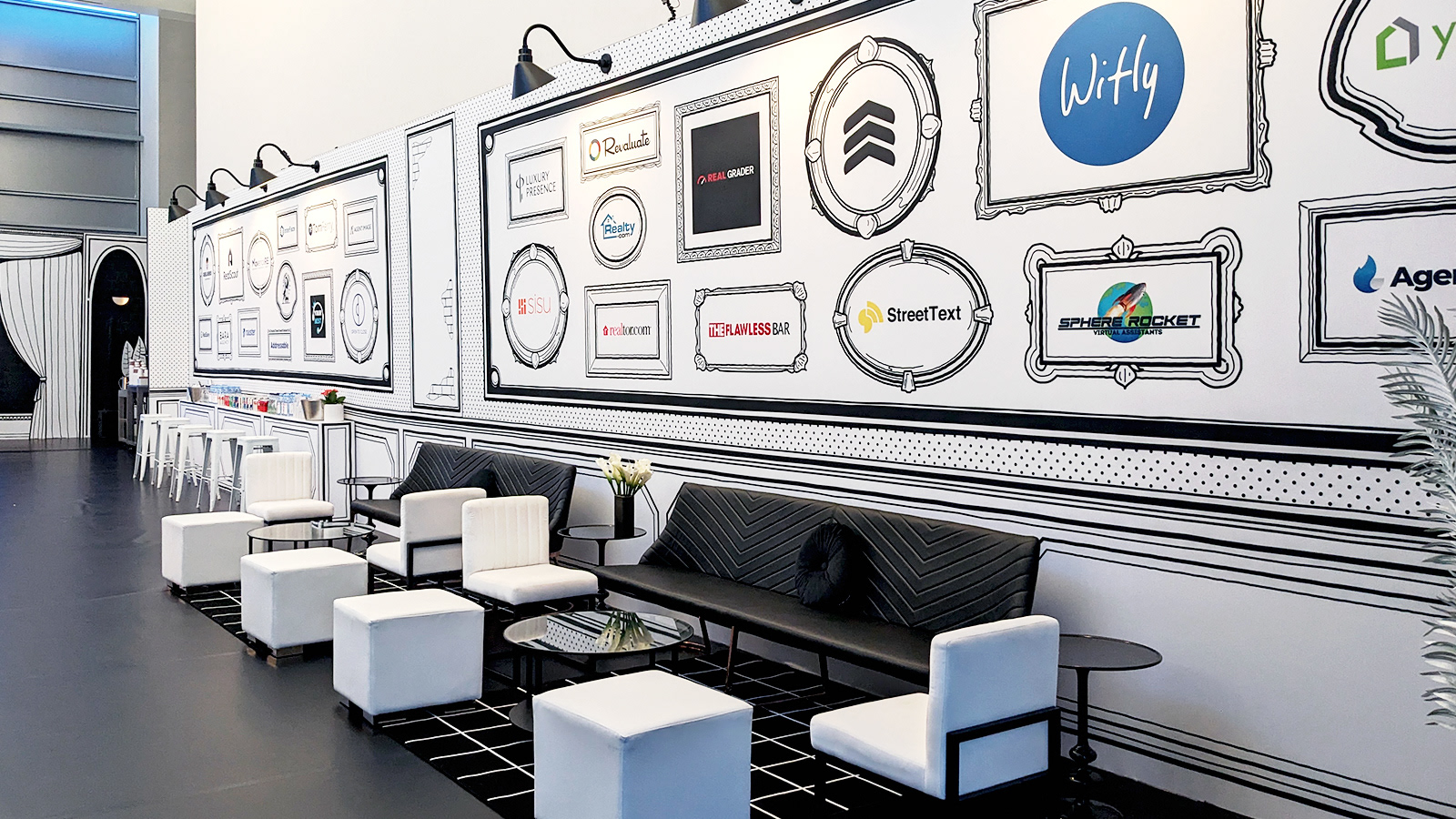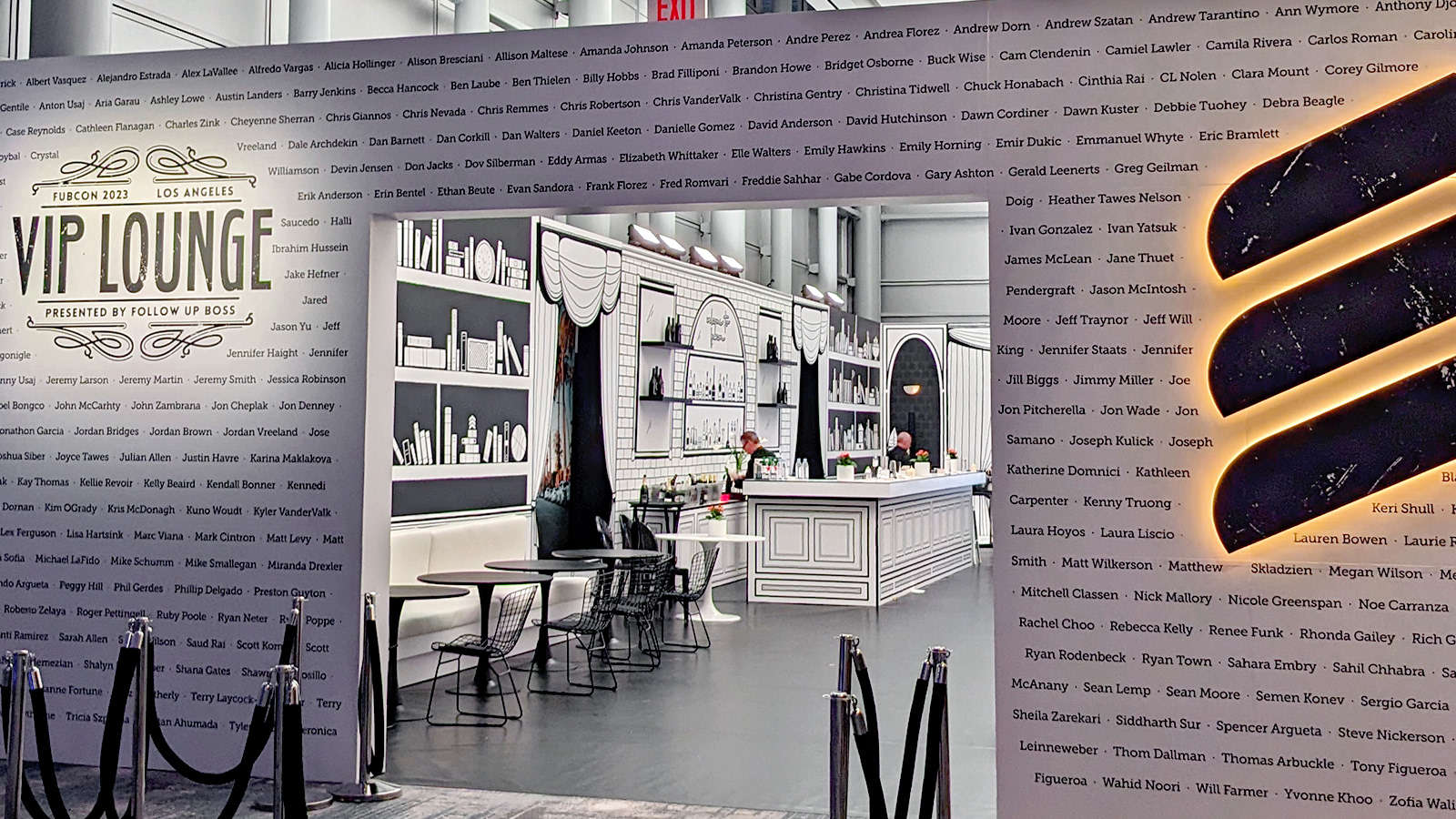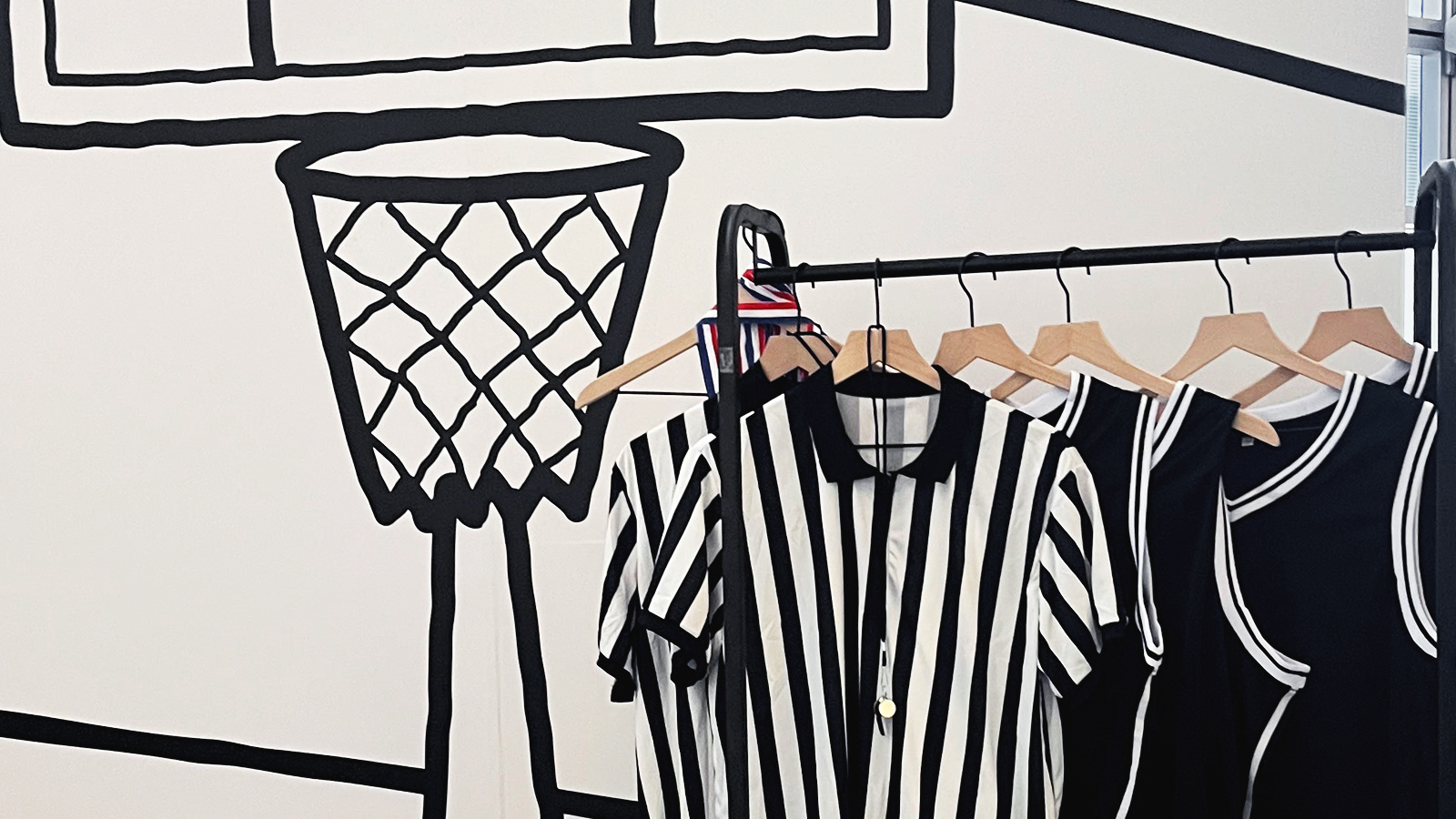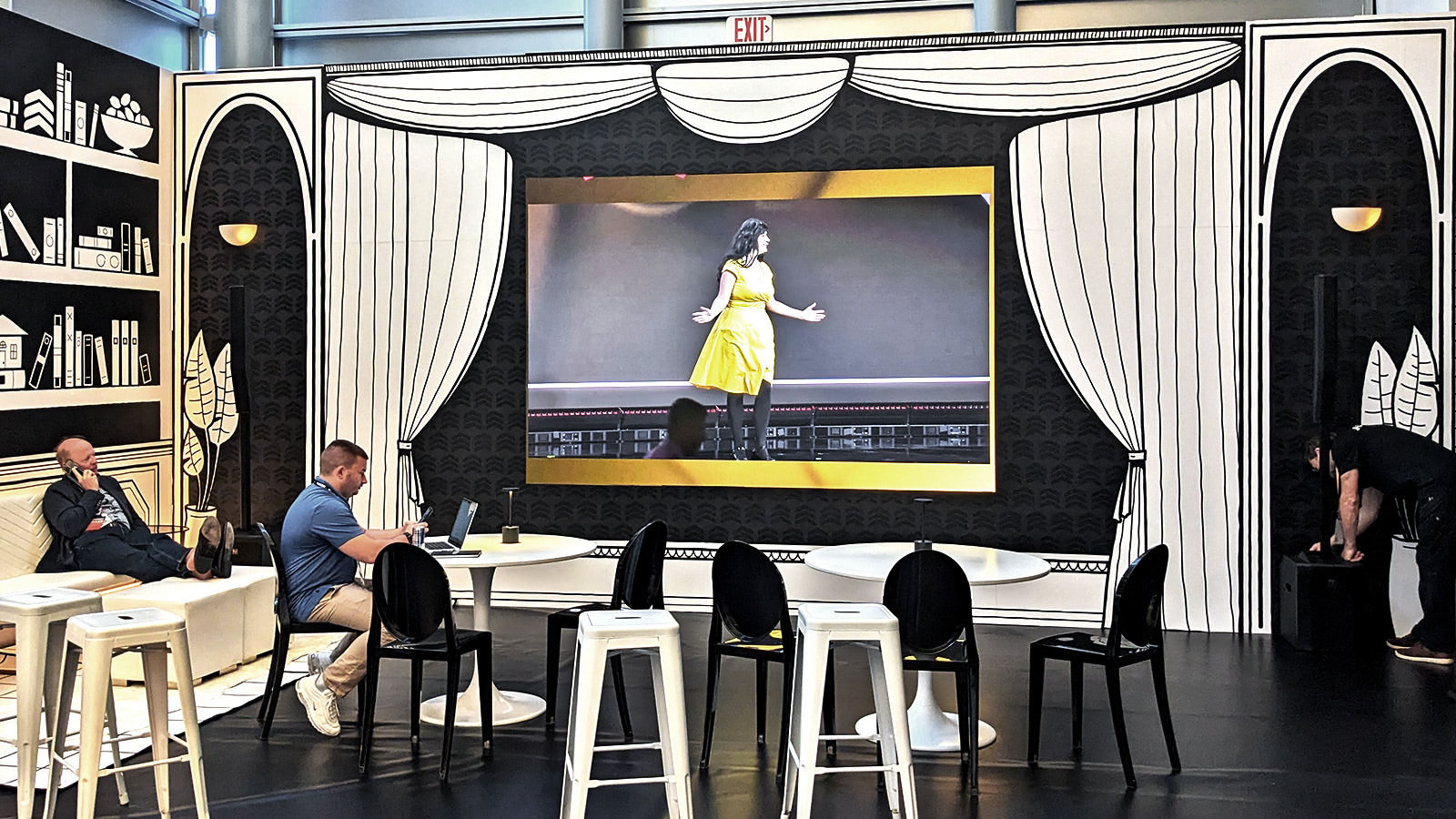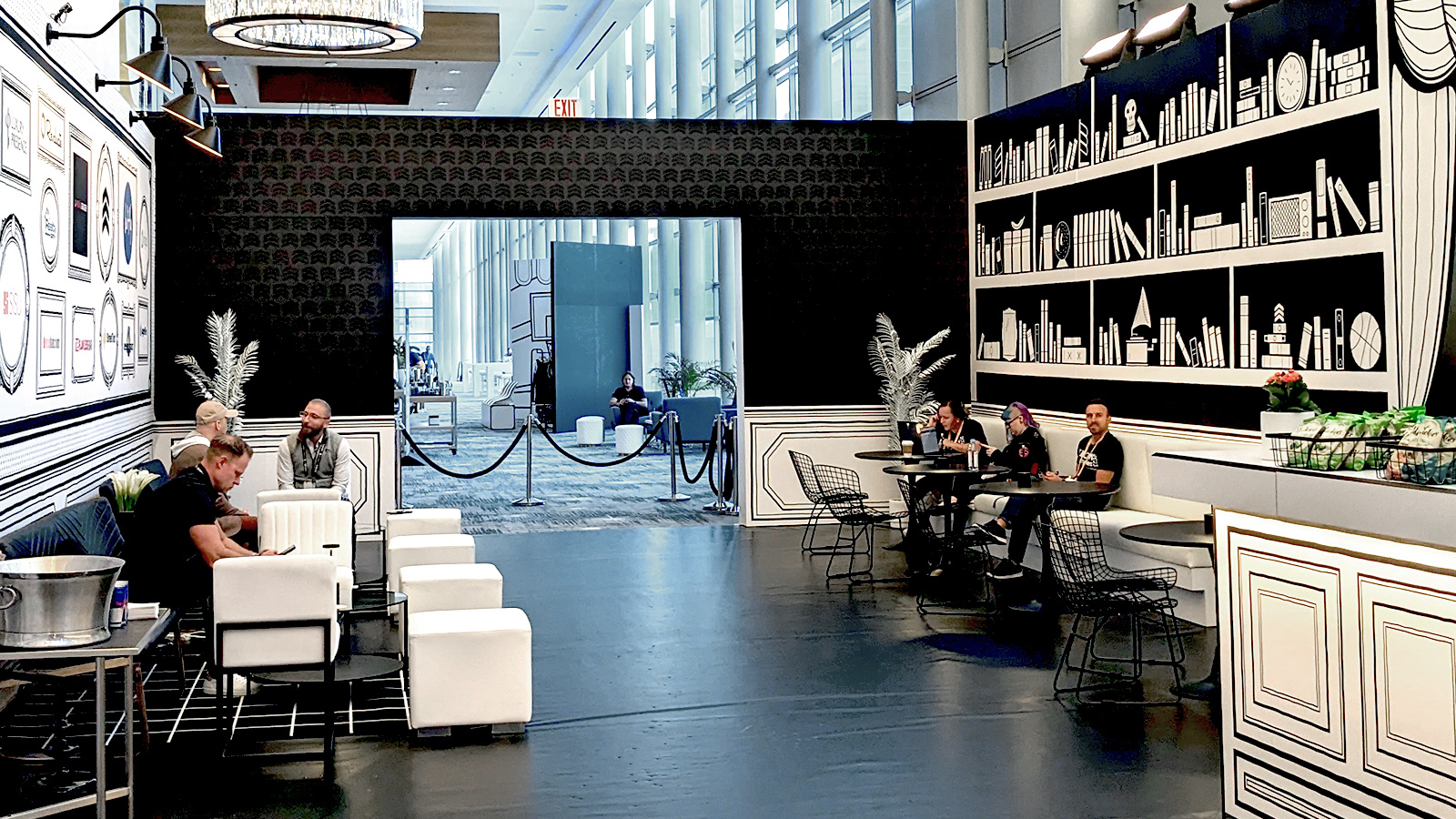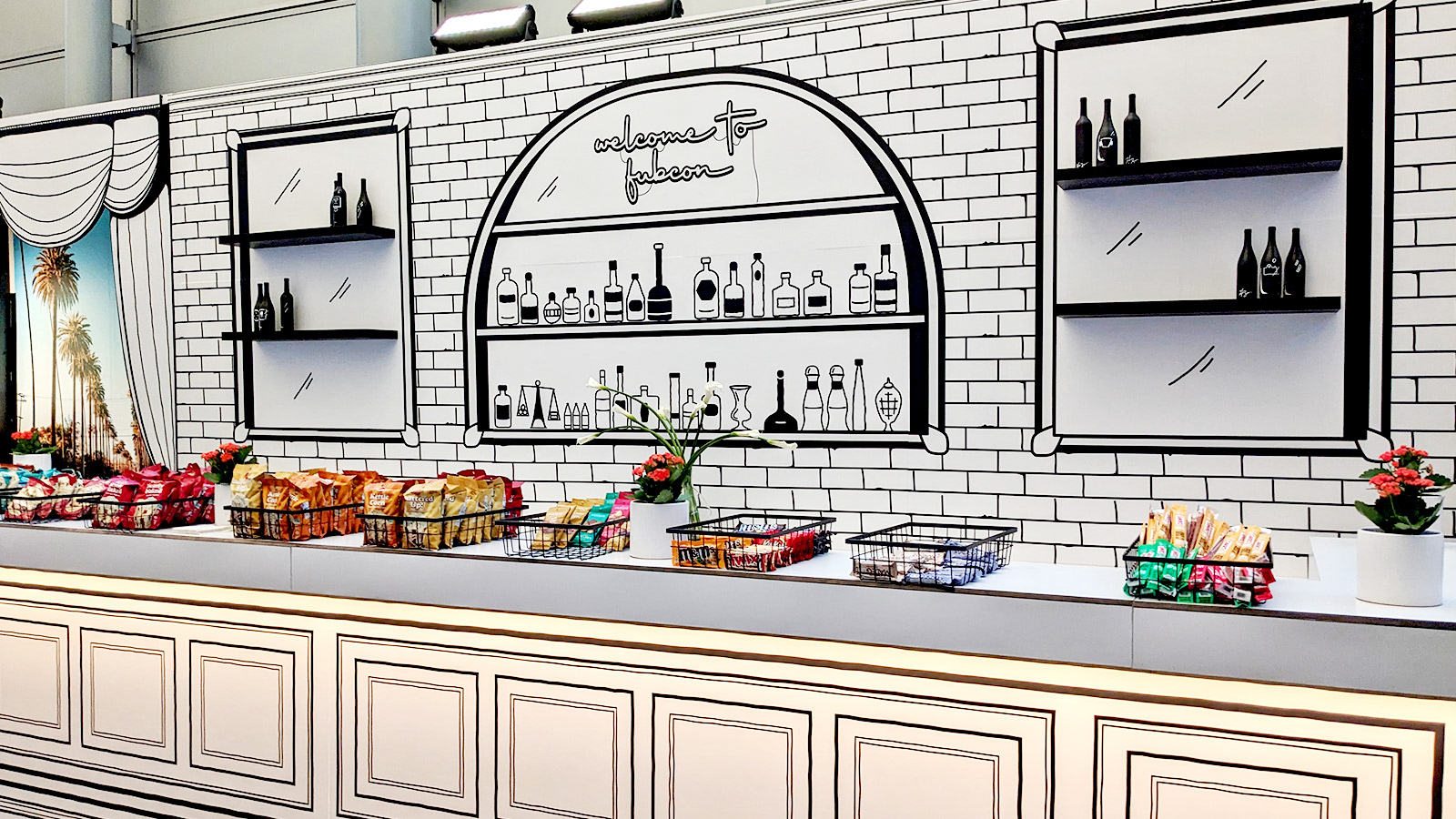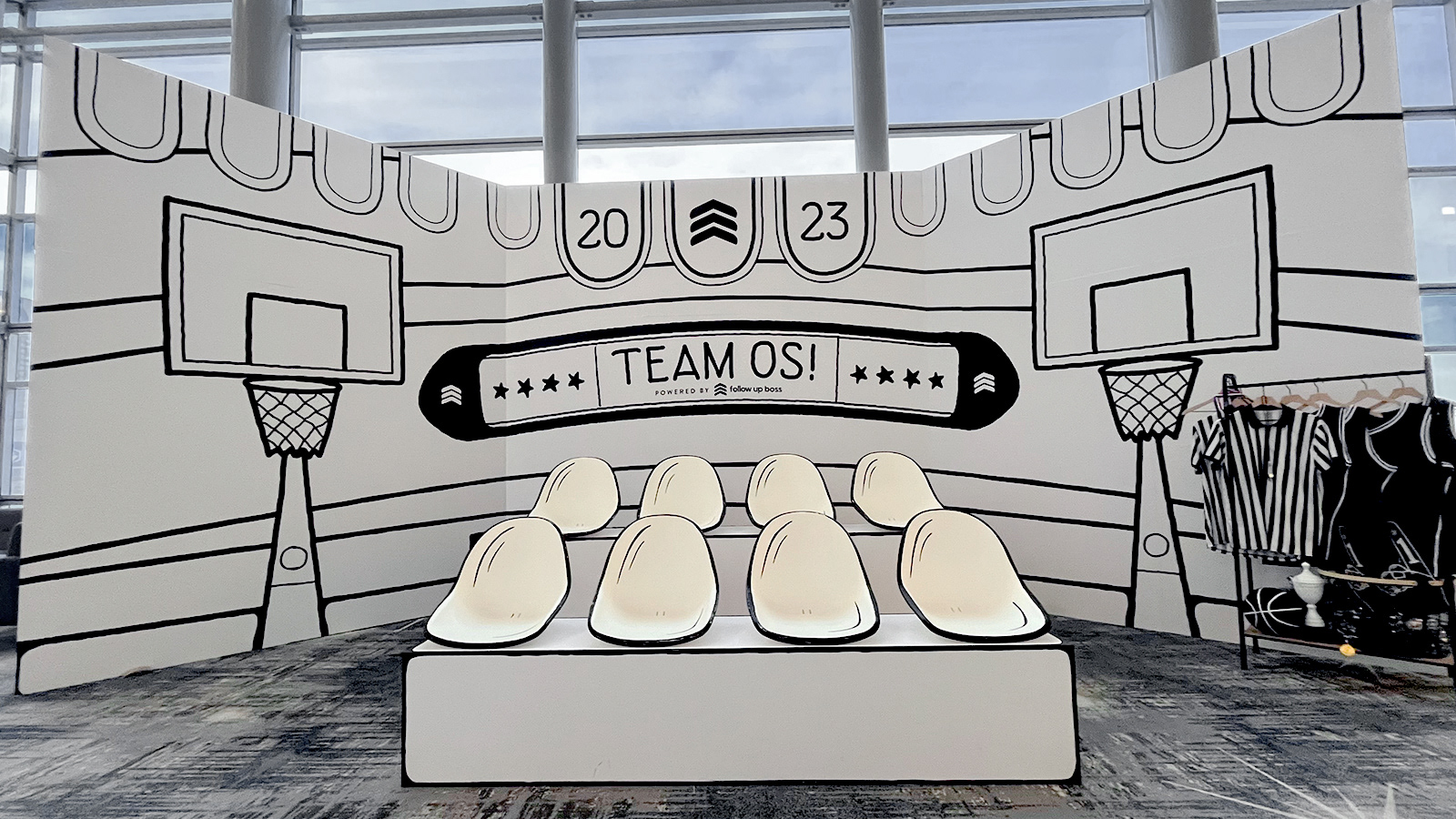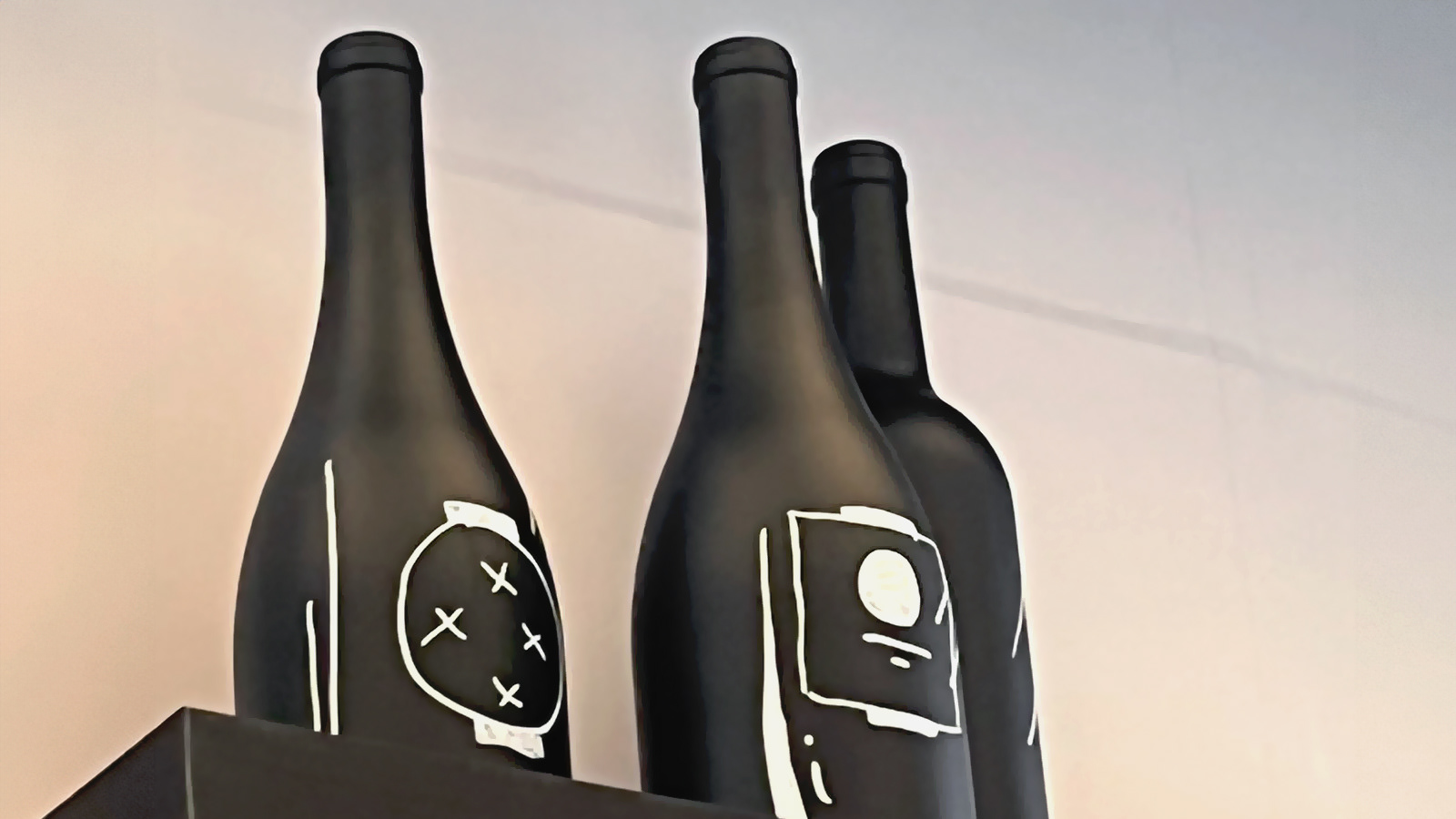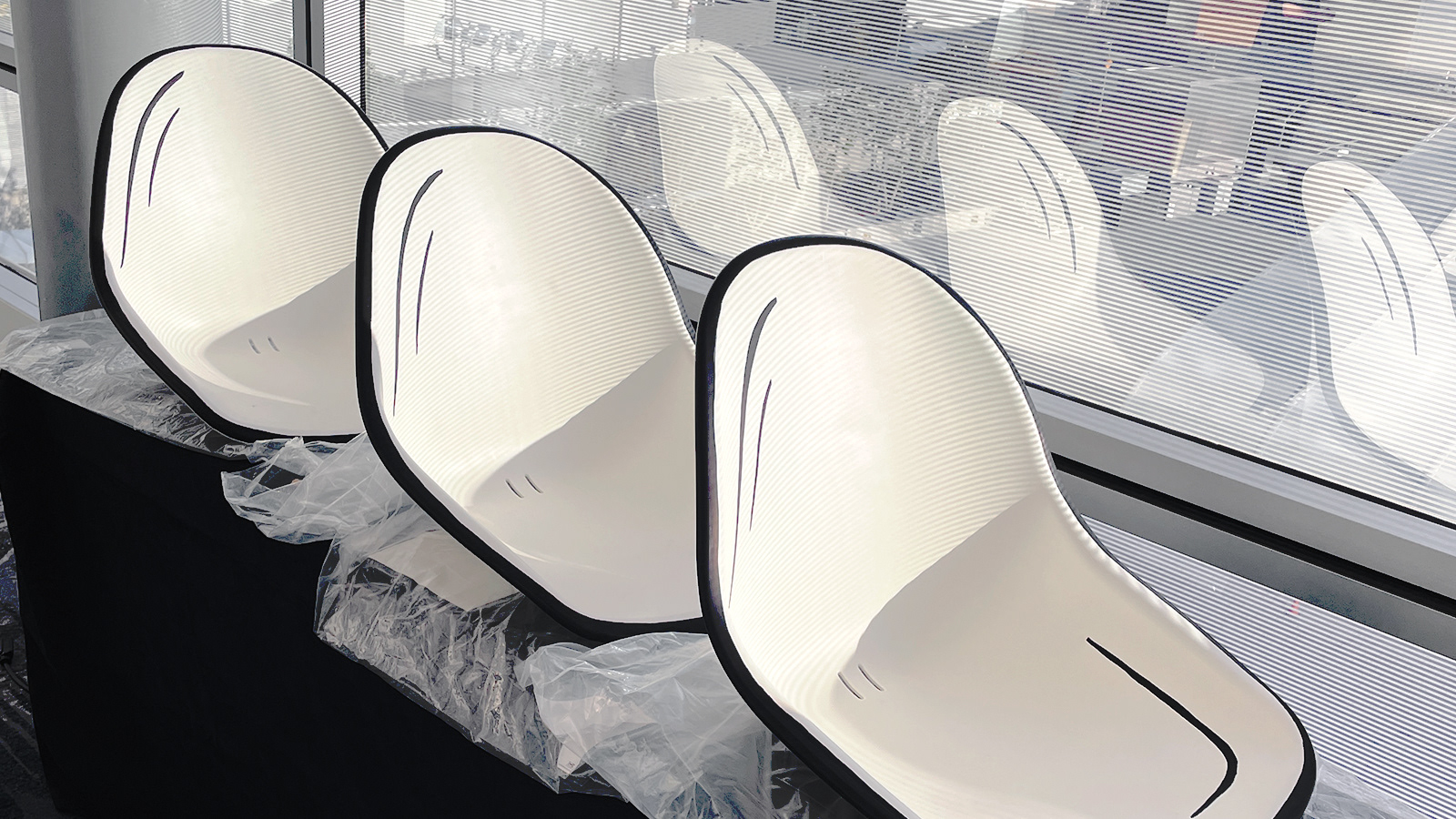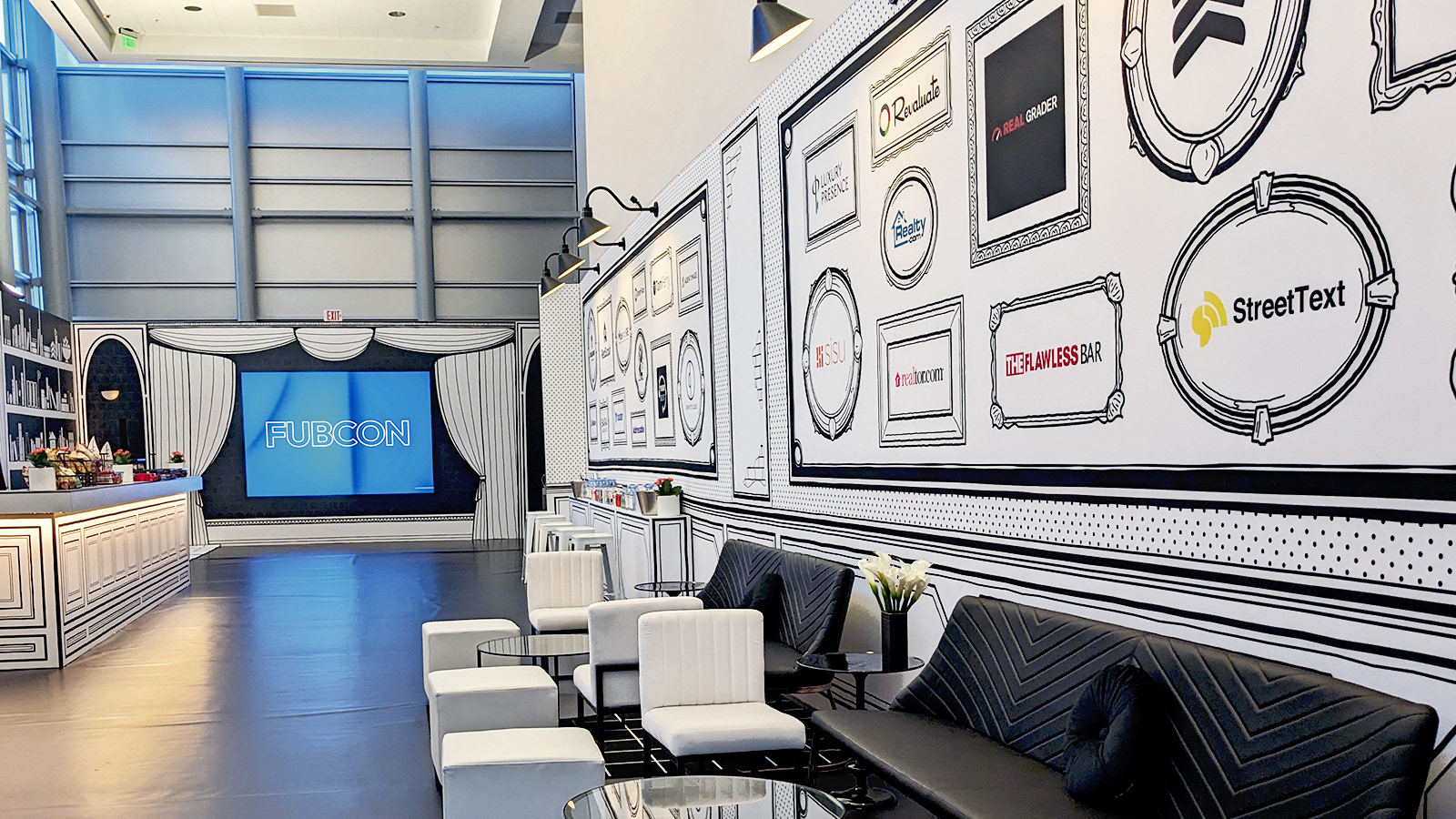
FUBCON VIP Experience
Illustration of over 2000 square foot VIP space for the real-estate conference. The comic book illustration style transformed the speak-easy theme of the space into a perfect hideout for VIP's.